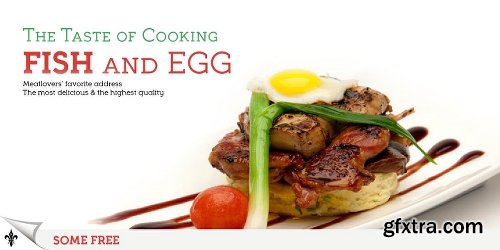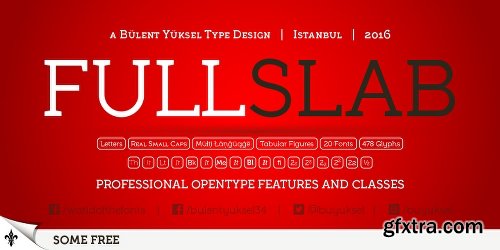
Full Slab Font Family - 20 Fonts
Full Slab is the younger brother of original Full Sans, FullNeue and Full Tools.
Ideally suited for advertising and packaging, editorial and publishing, logo, branding and creative industries, poster and billboards, small text, wayfinding and signage as well as web and screen design.